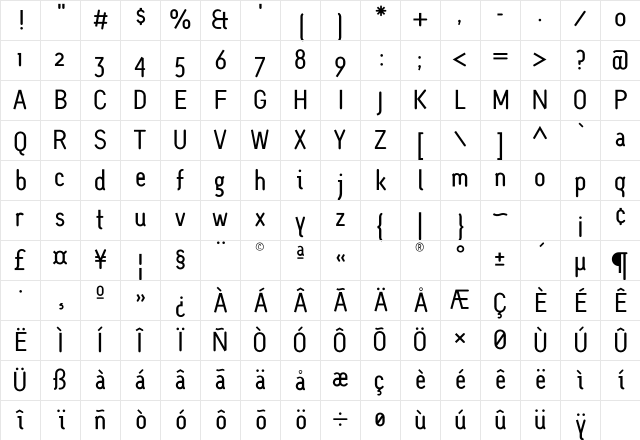
Complete Monolein inbetween glyph index. Displaying only characters natively supported by Monolein inbetween font.
Monolein uses fixed-width spacing throughout, giving it the structured, systematic character associated with coding environments and technical documentation.
Pro Tip: Use Monolein with slightly increased line-height for extended reading - fixed-width spacing can feel dense in longer passages without extra breathing room.